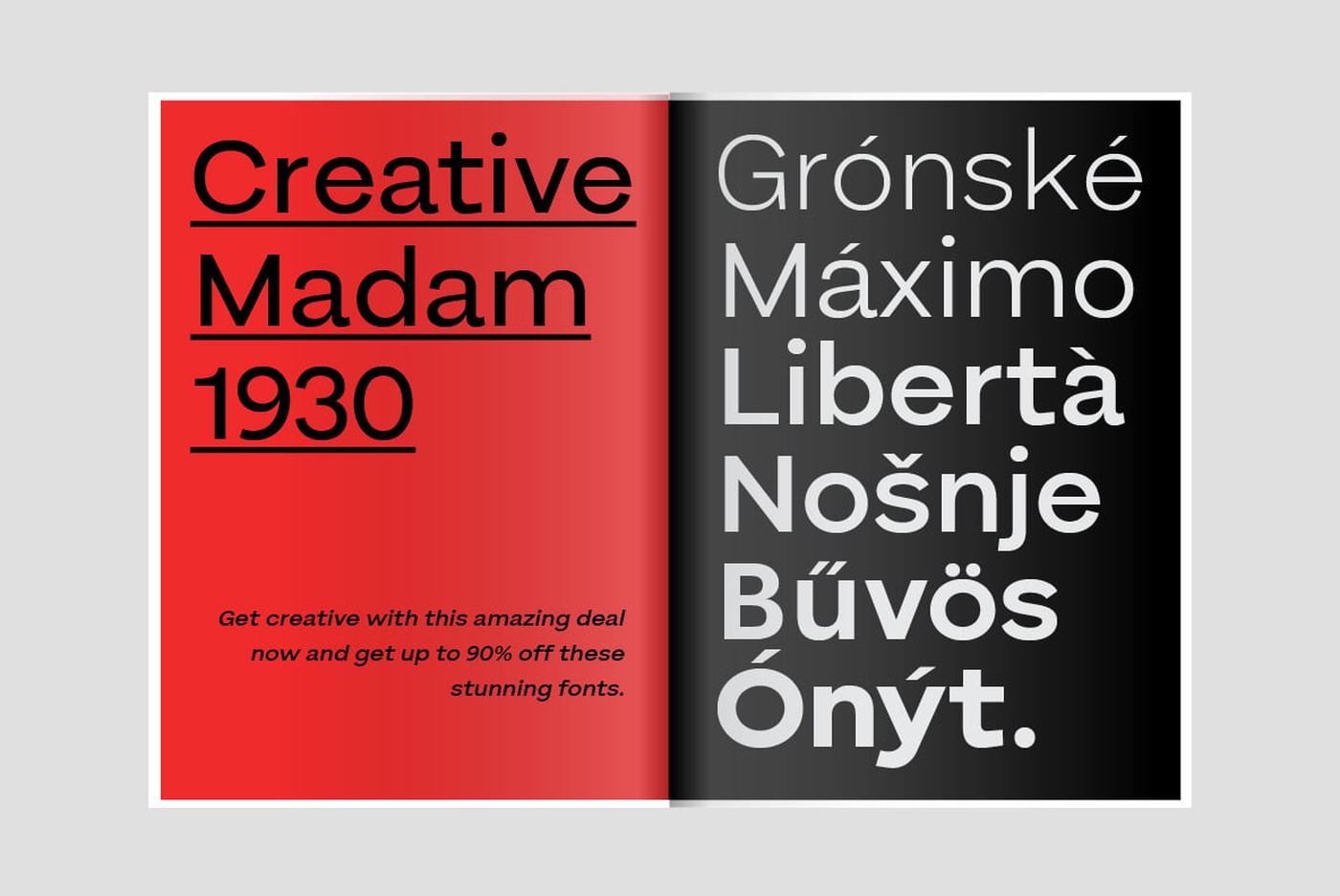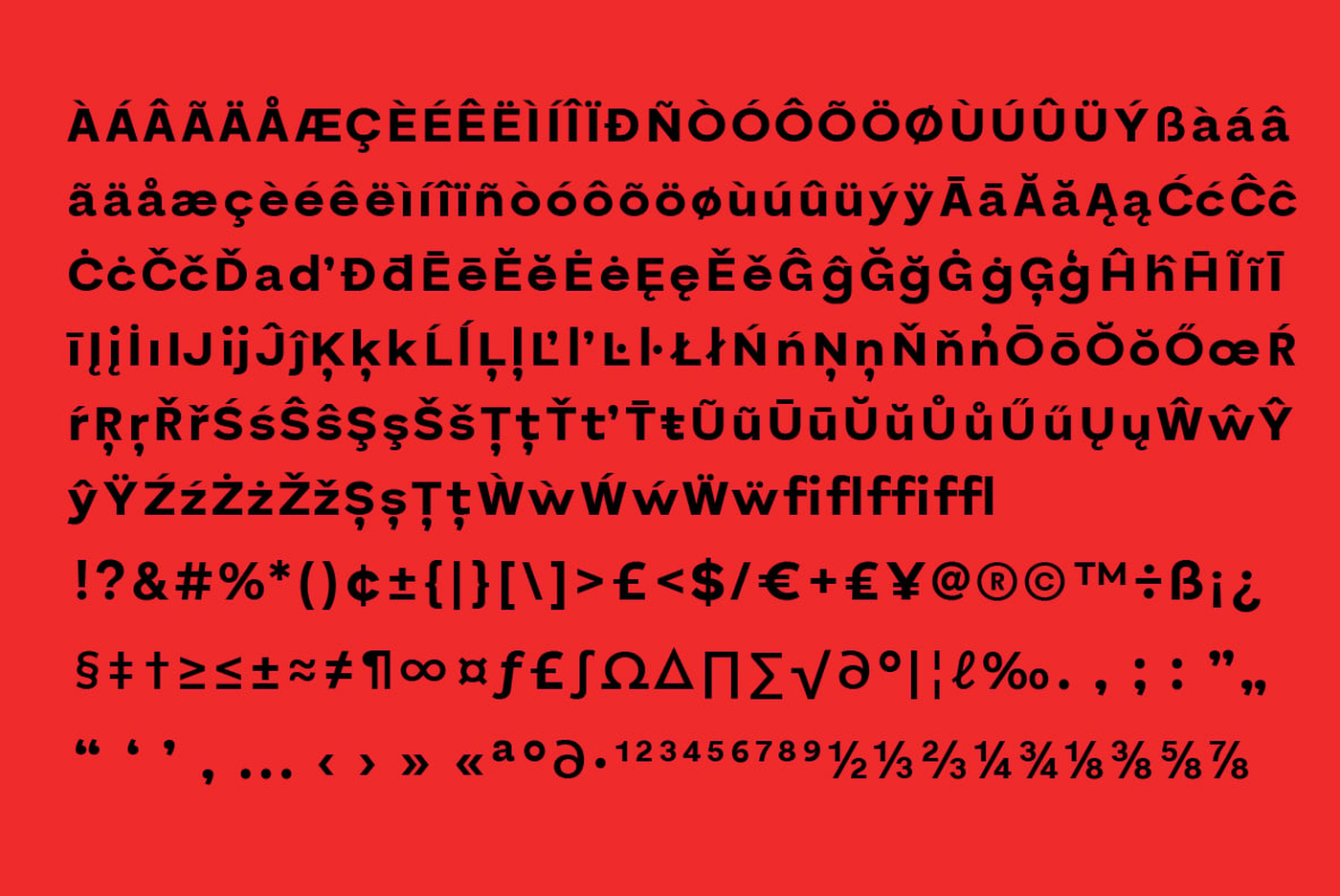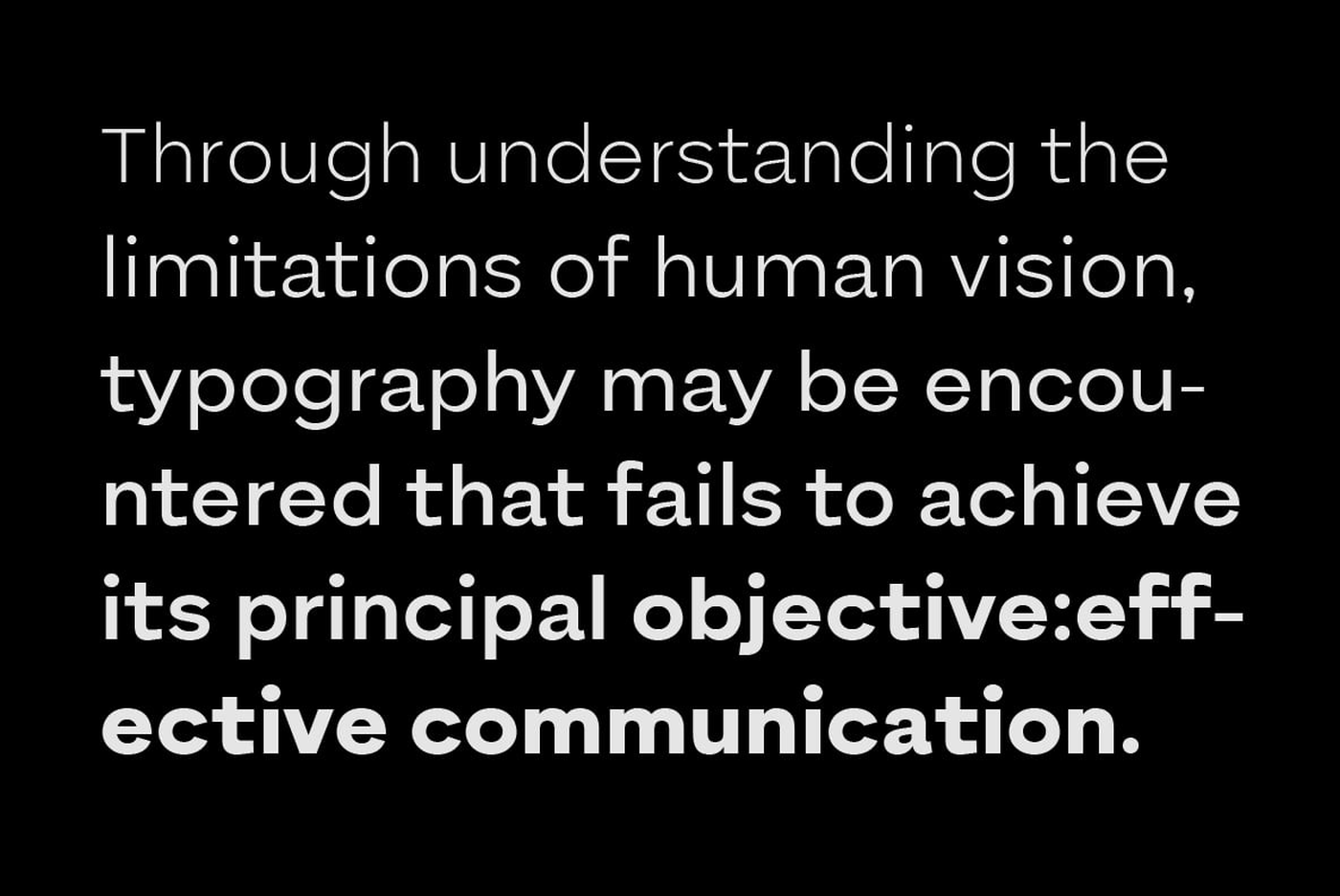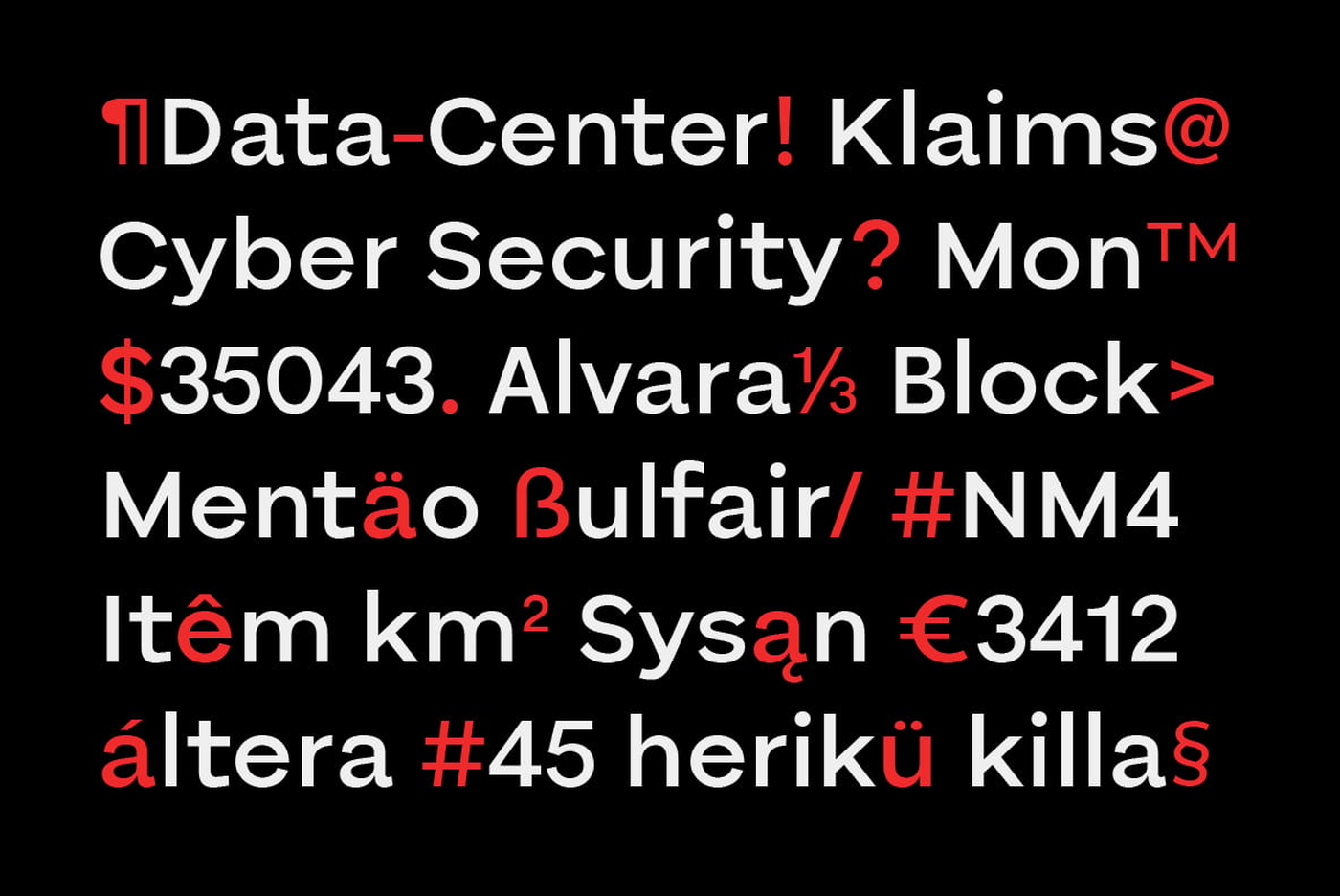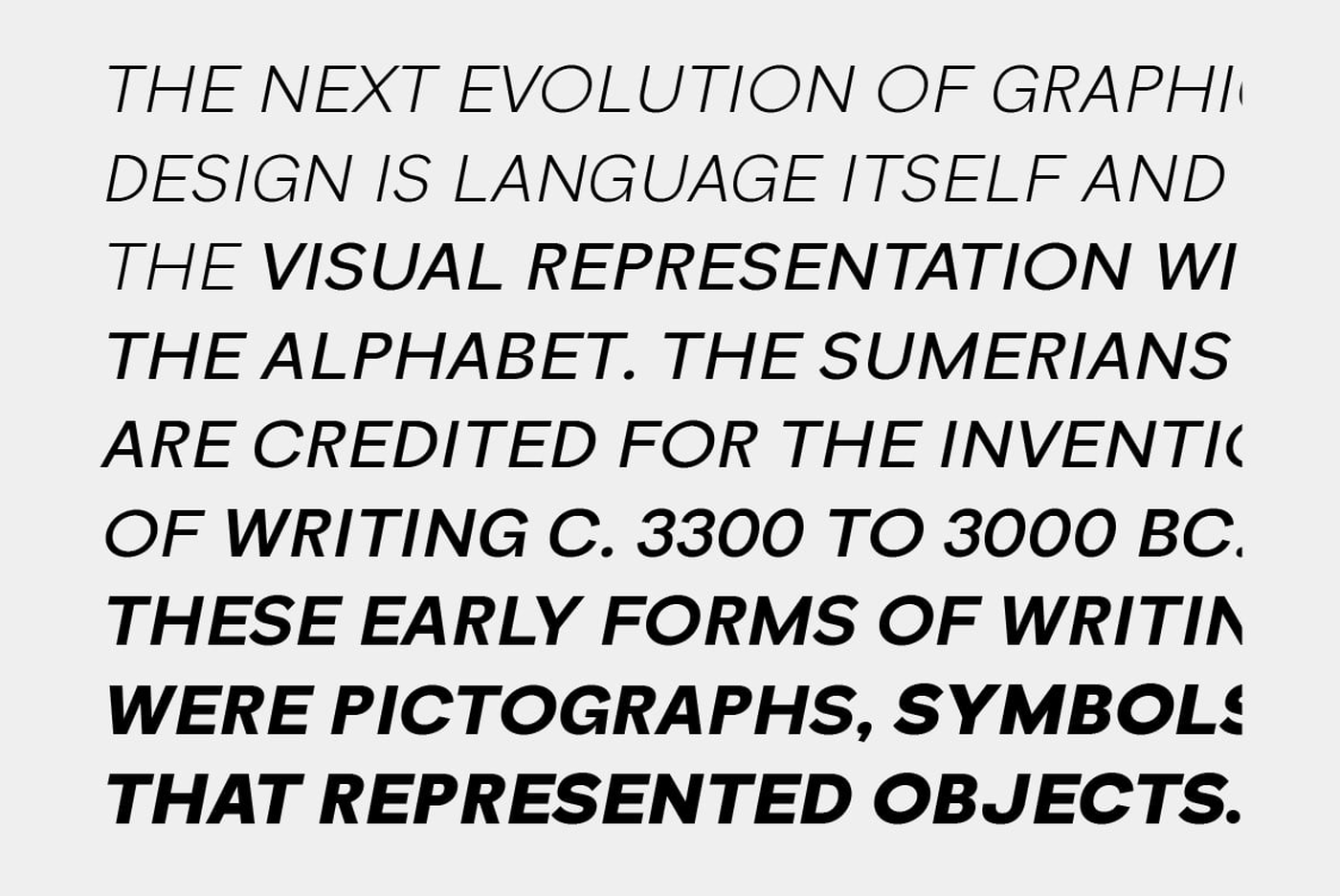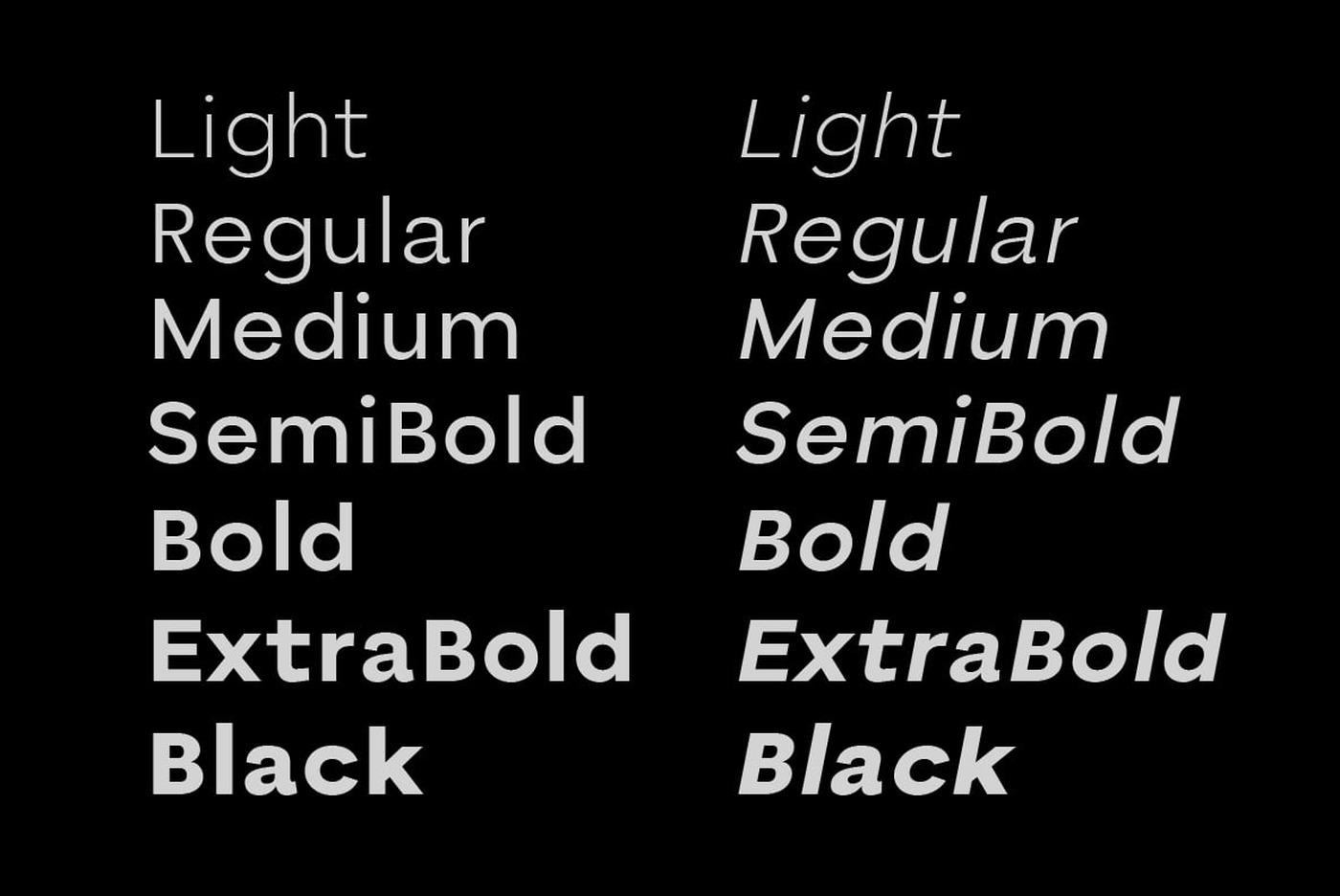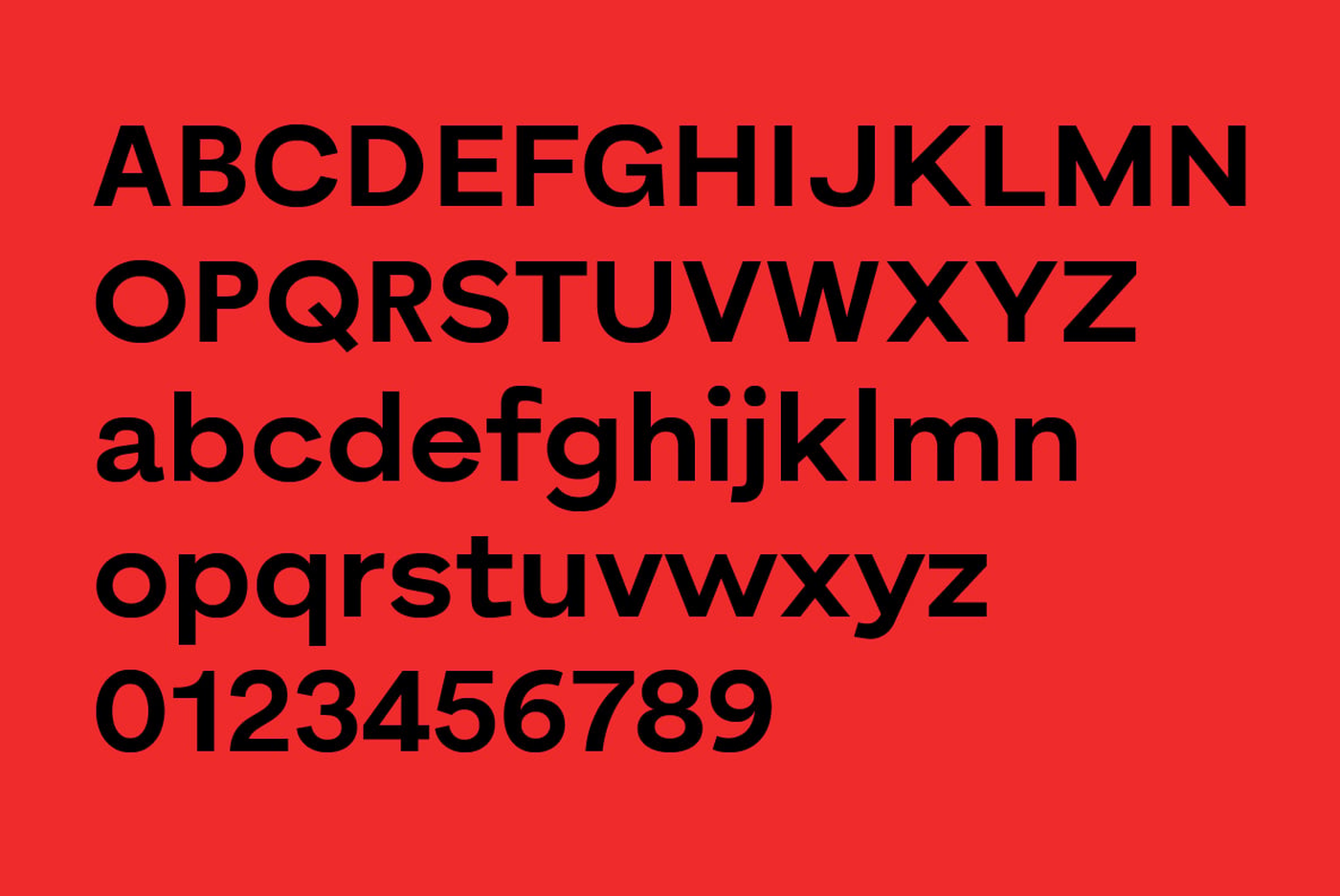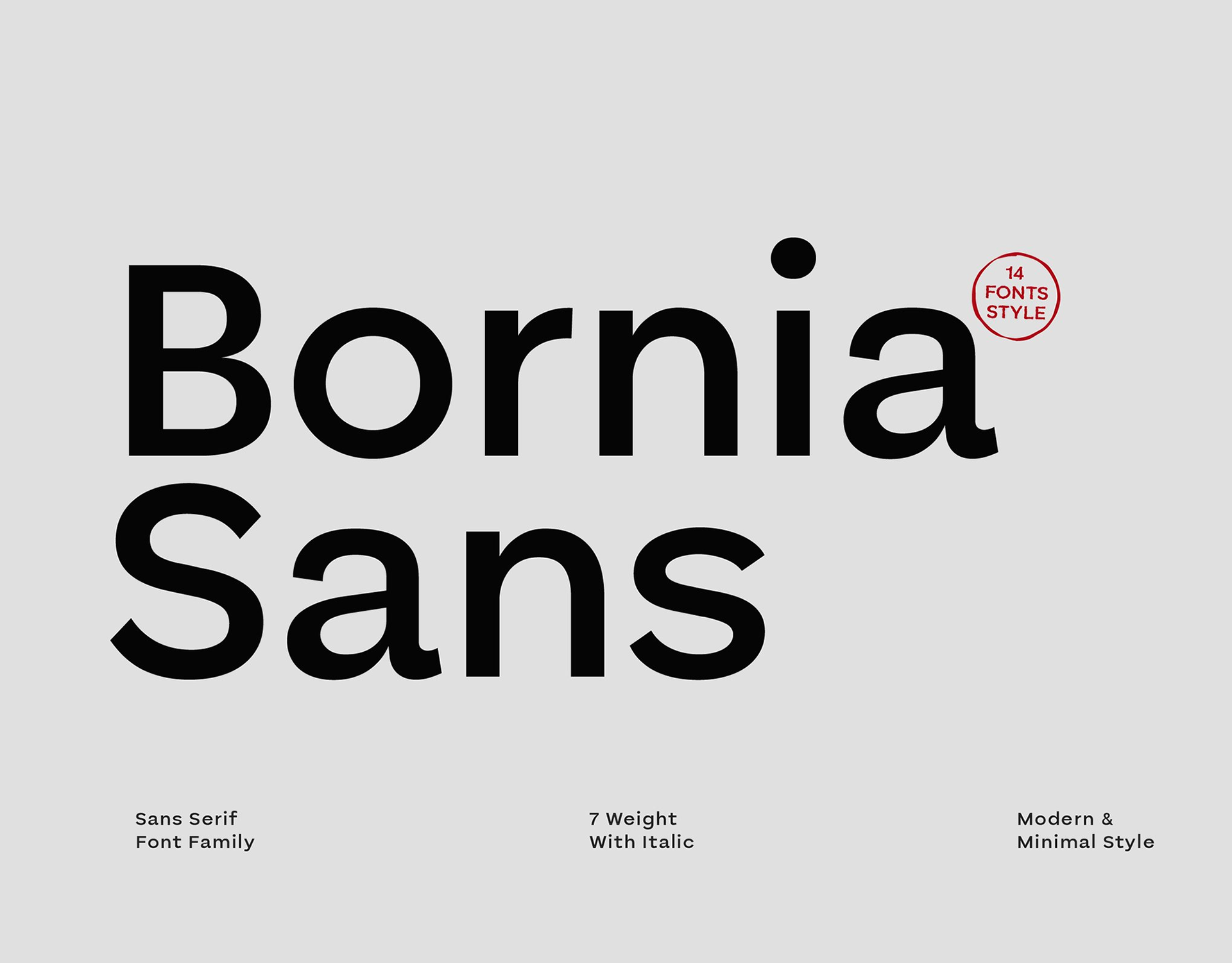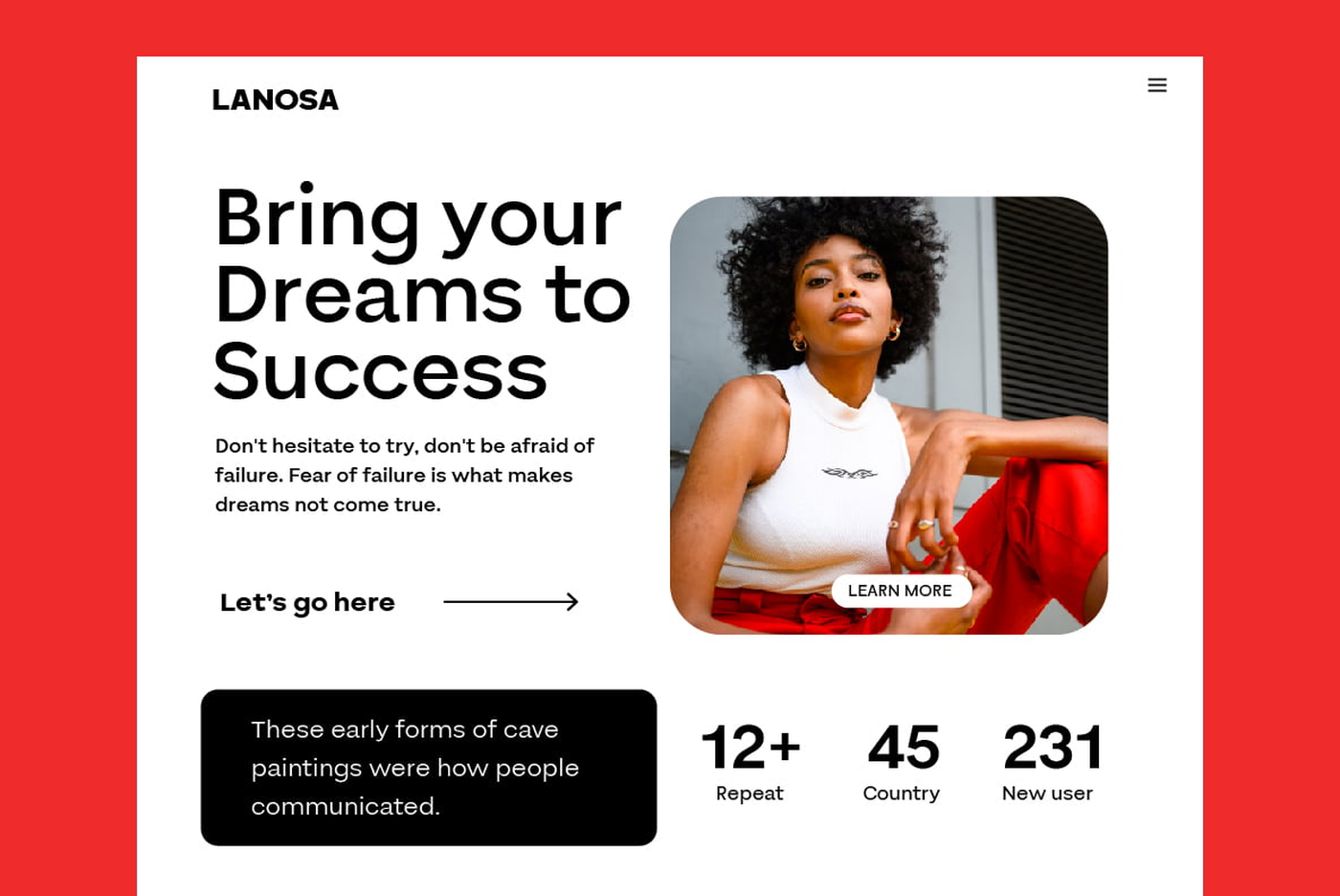
Bornia - Sans Serif Font Family
Bornia is a typeface that exudes sophistication and simplicity. This is a font that exudes a contemporary feel and minimalist look that is sure to captivate your audience. With a variety of bold, Light-to-black variants, this font provides a lot of flexibility in use, giving your designs extra charm and appeal.